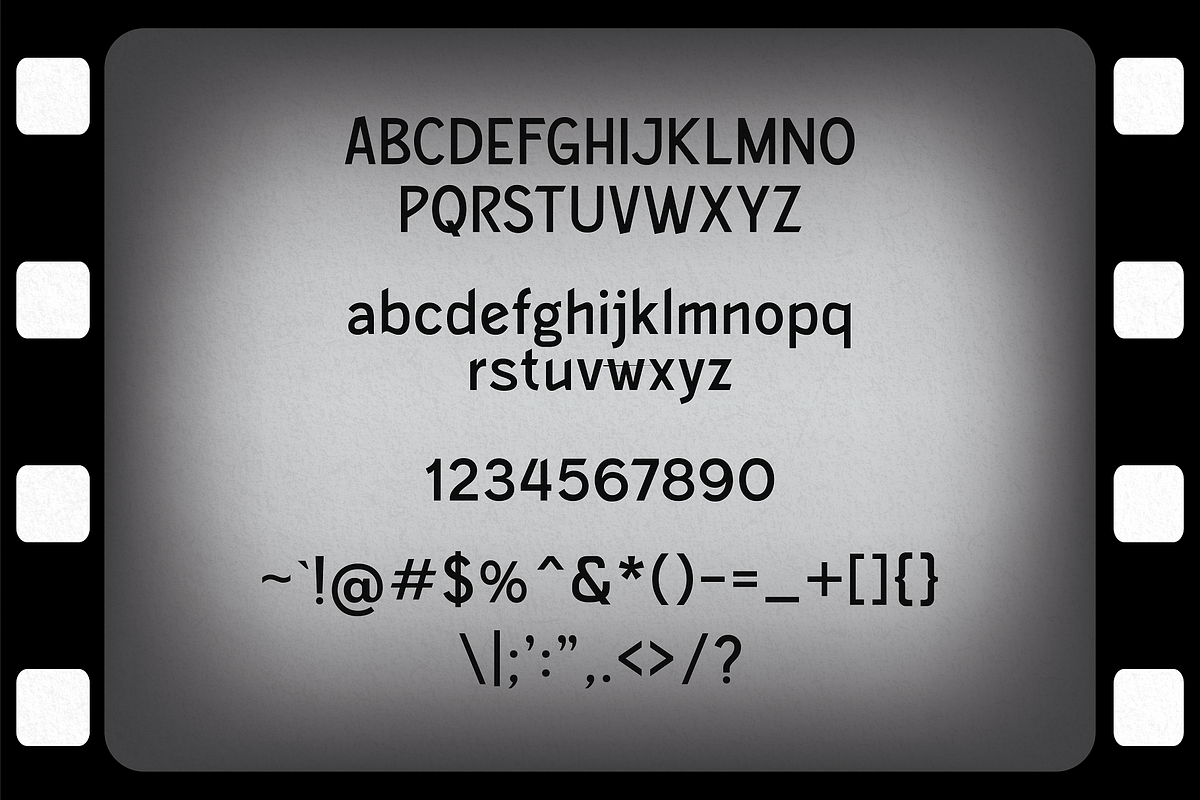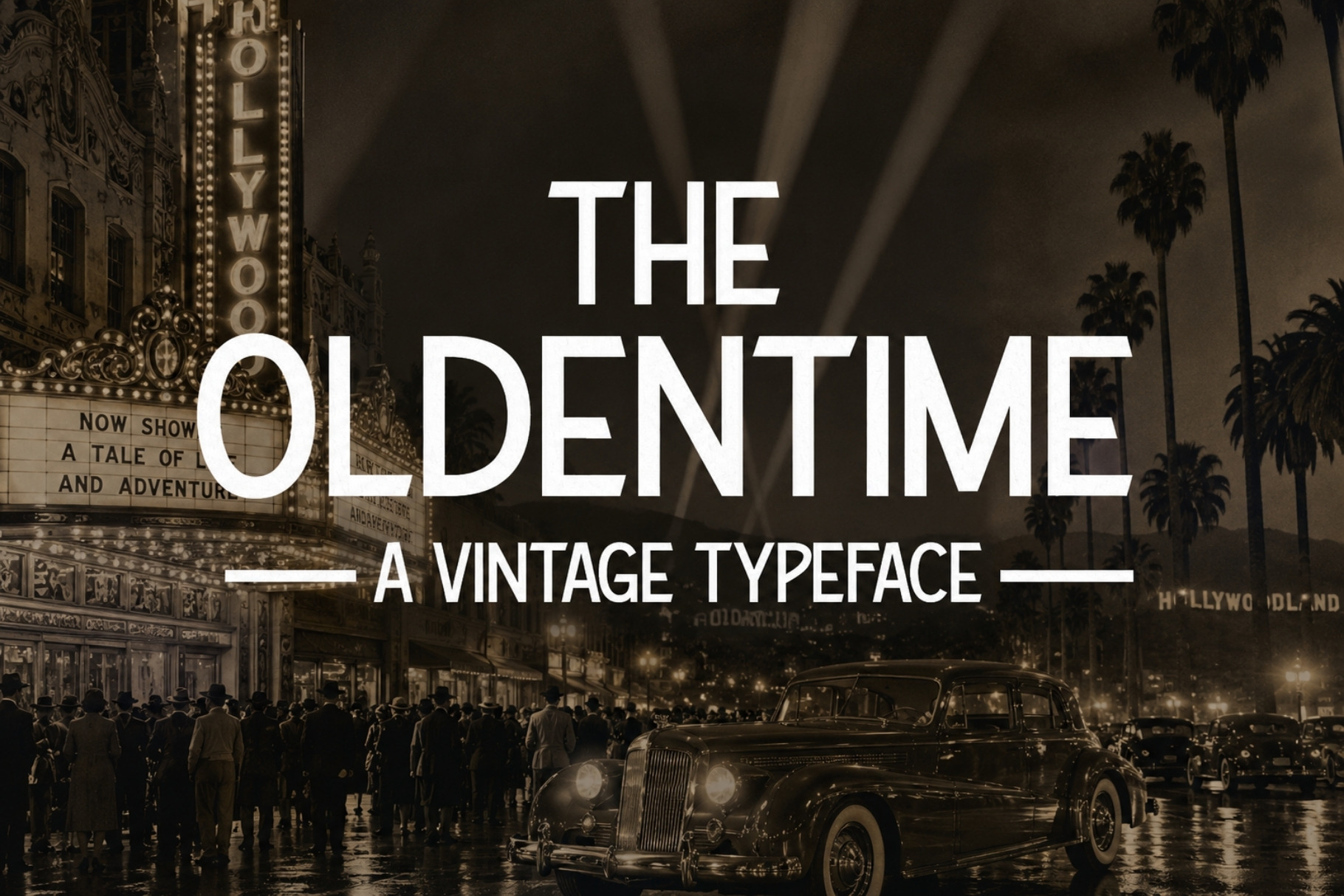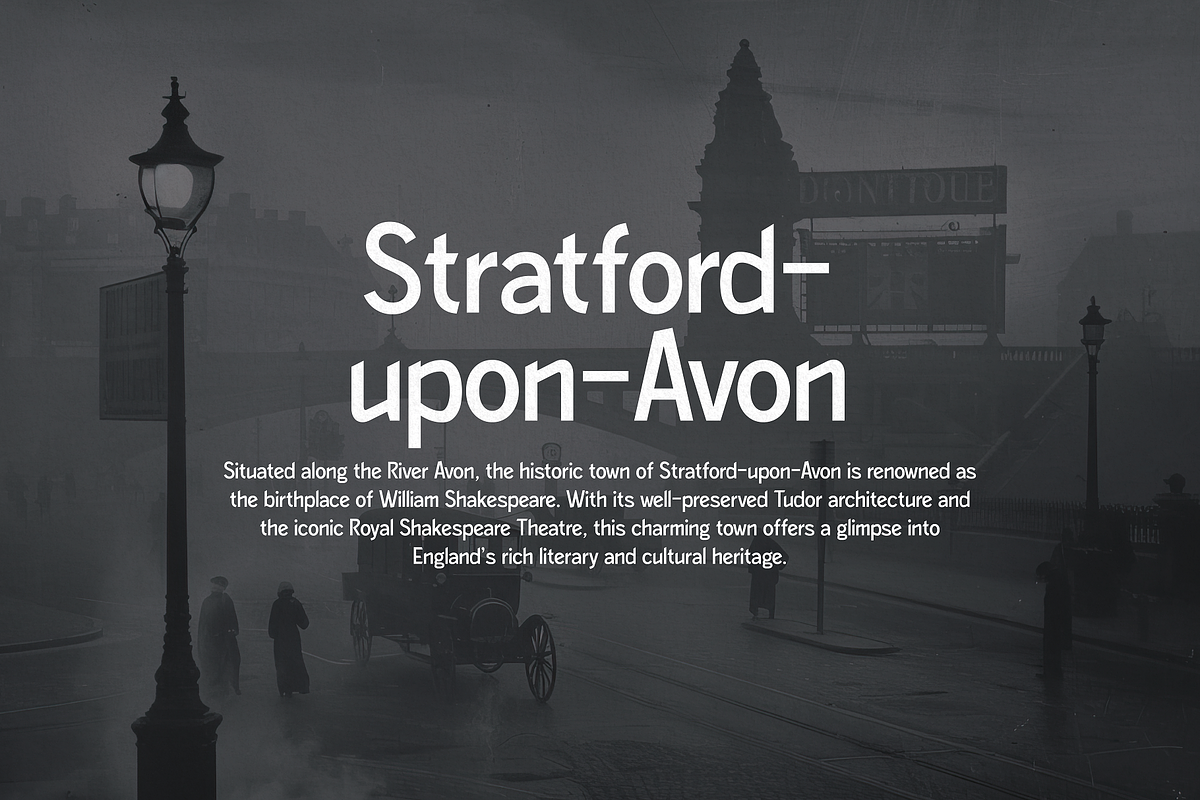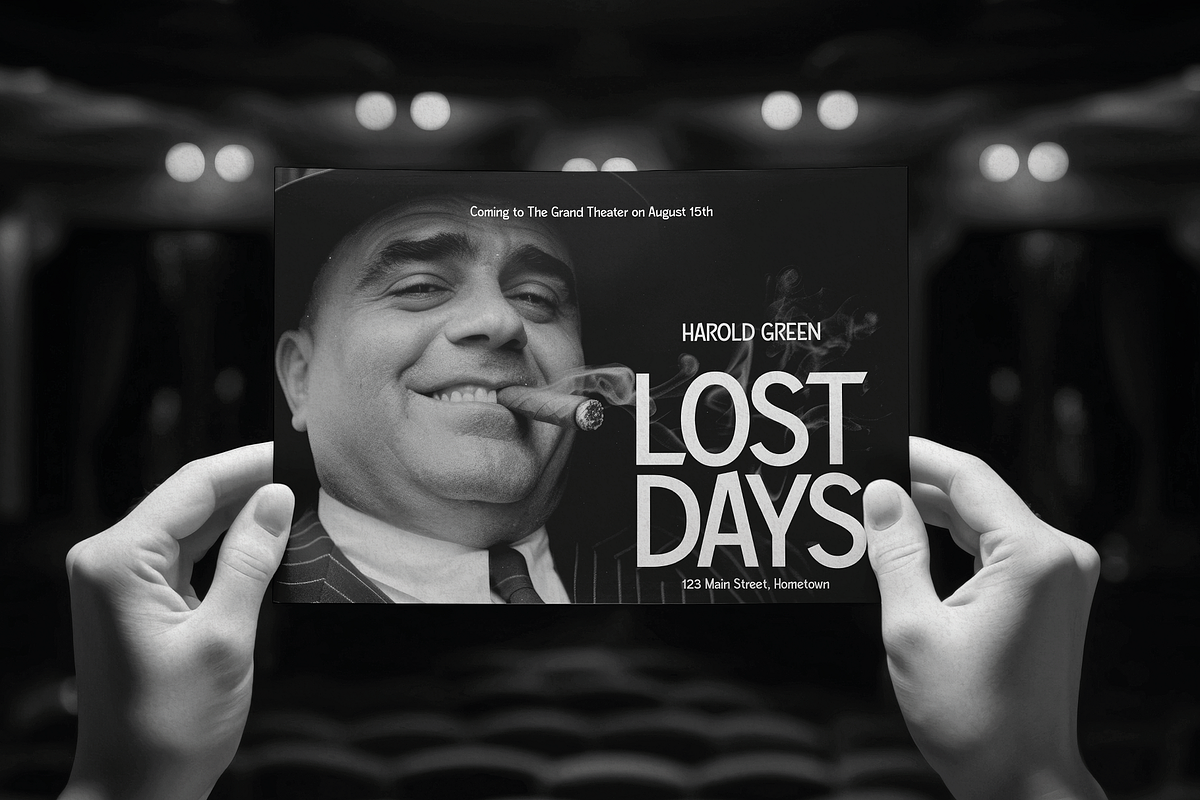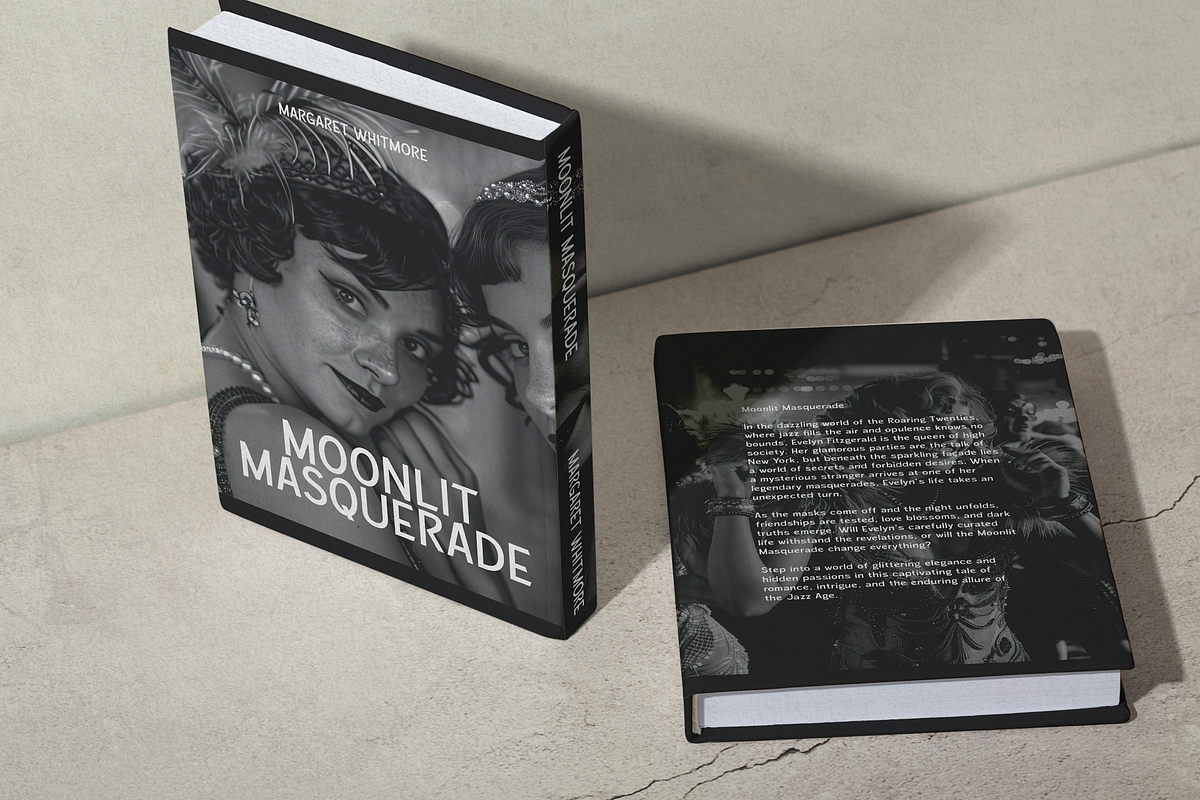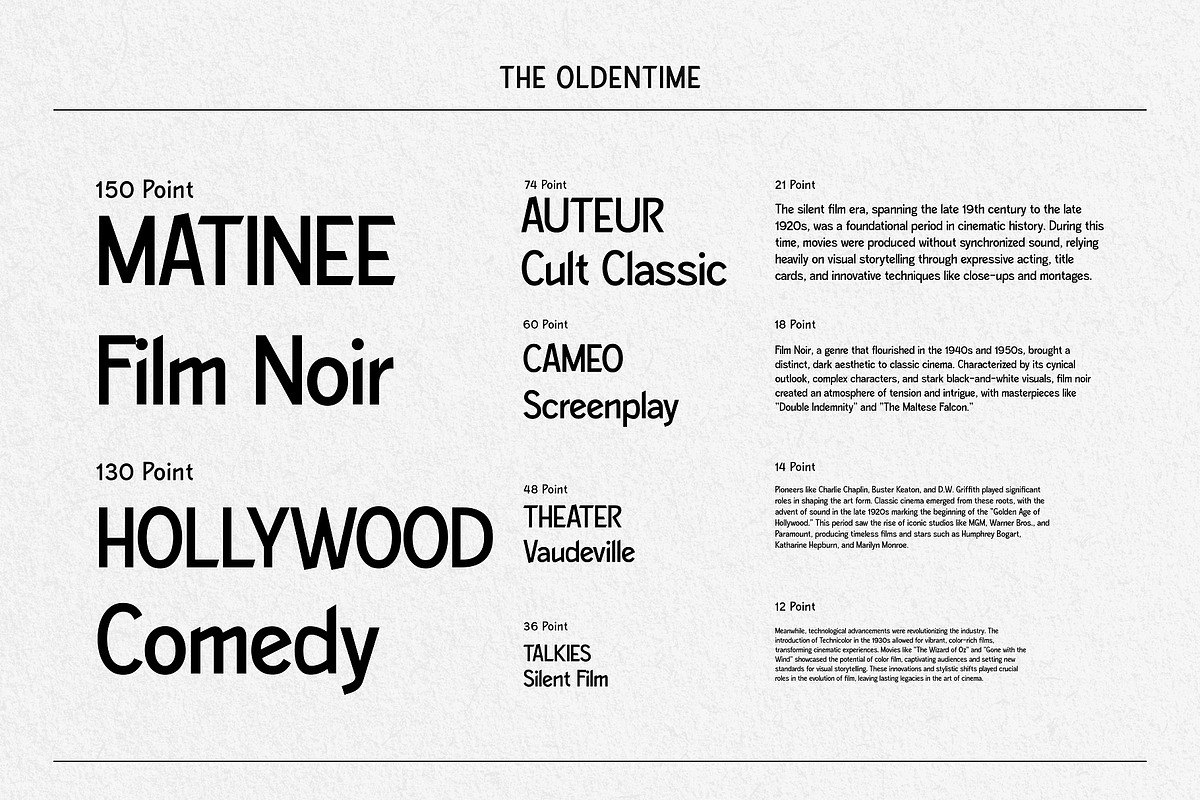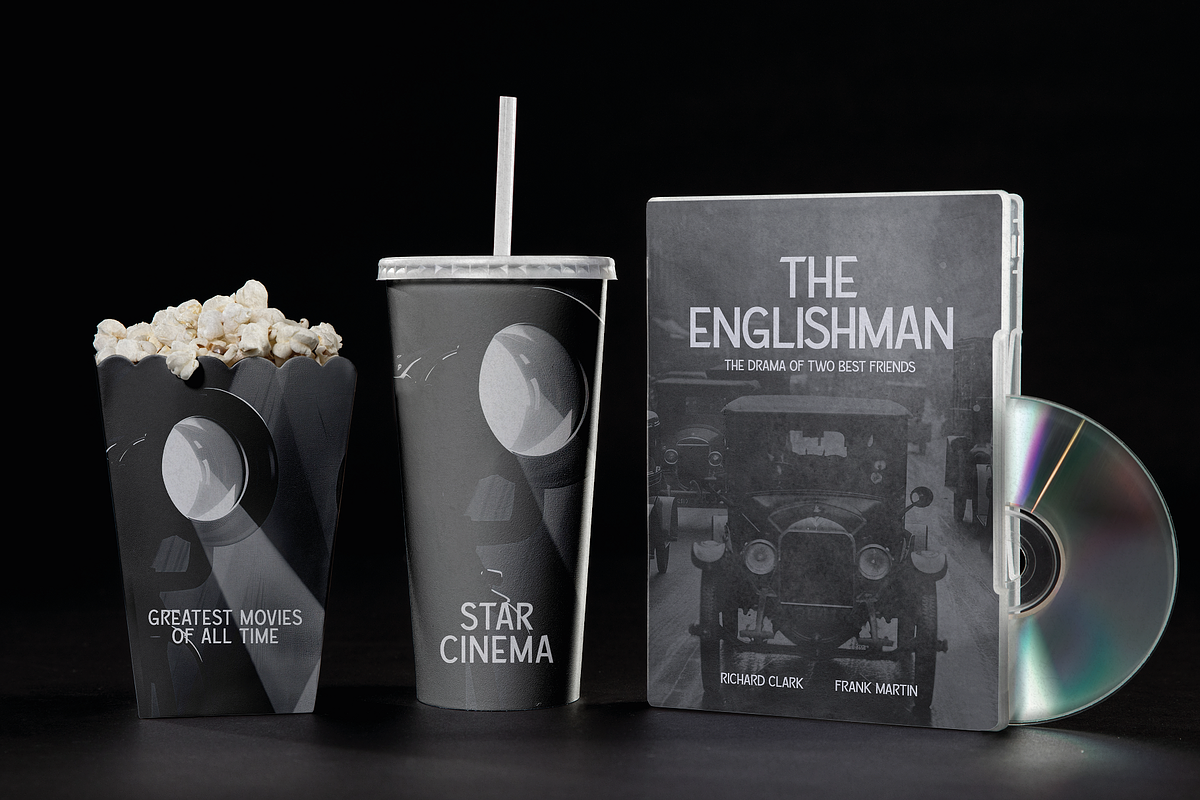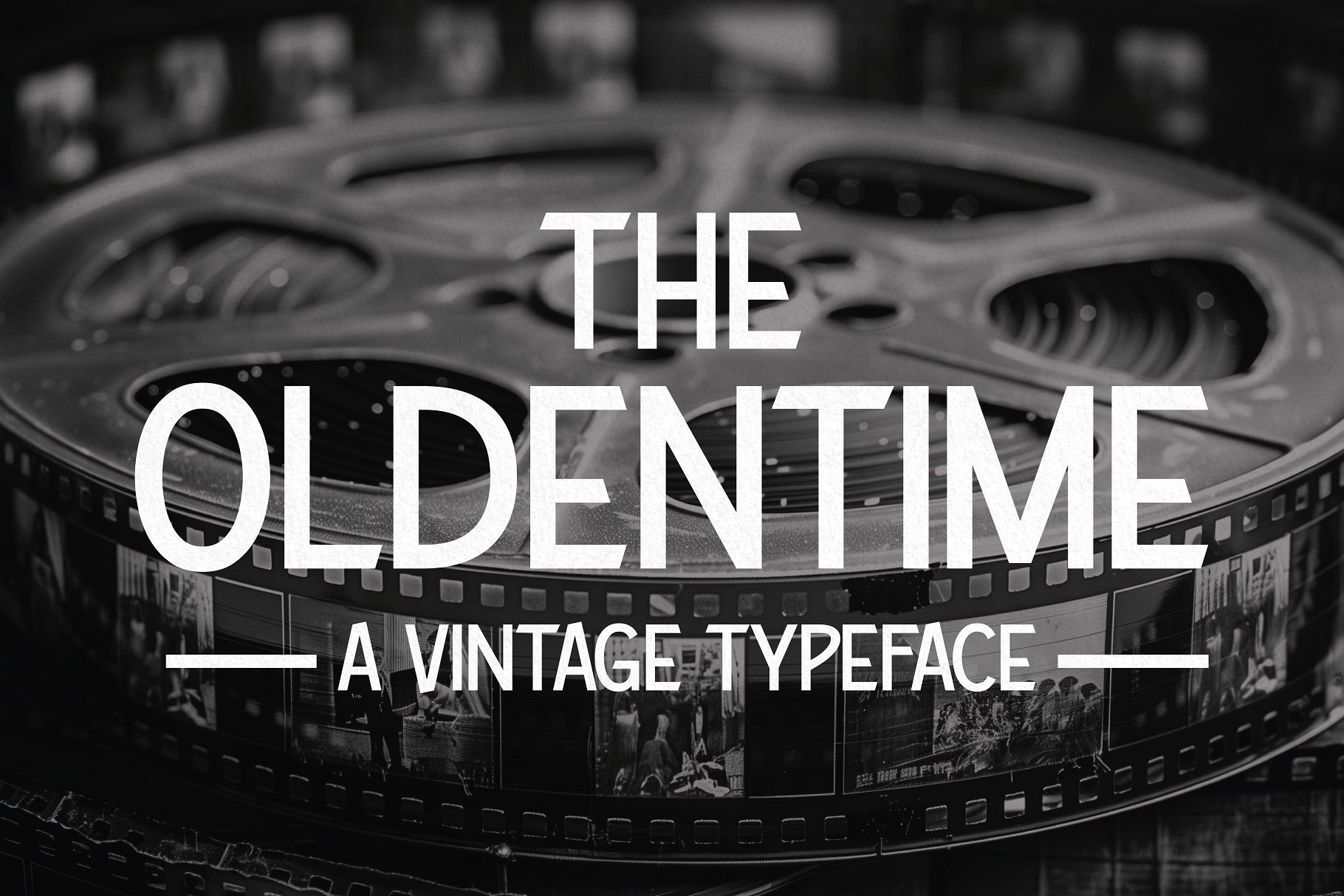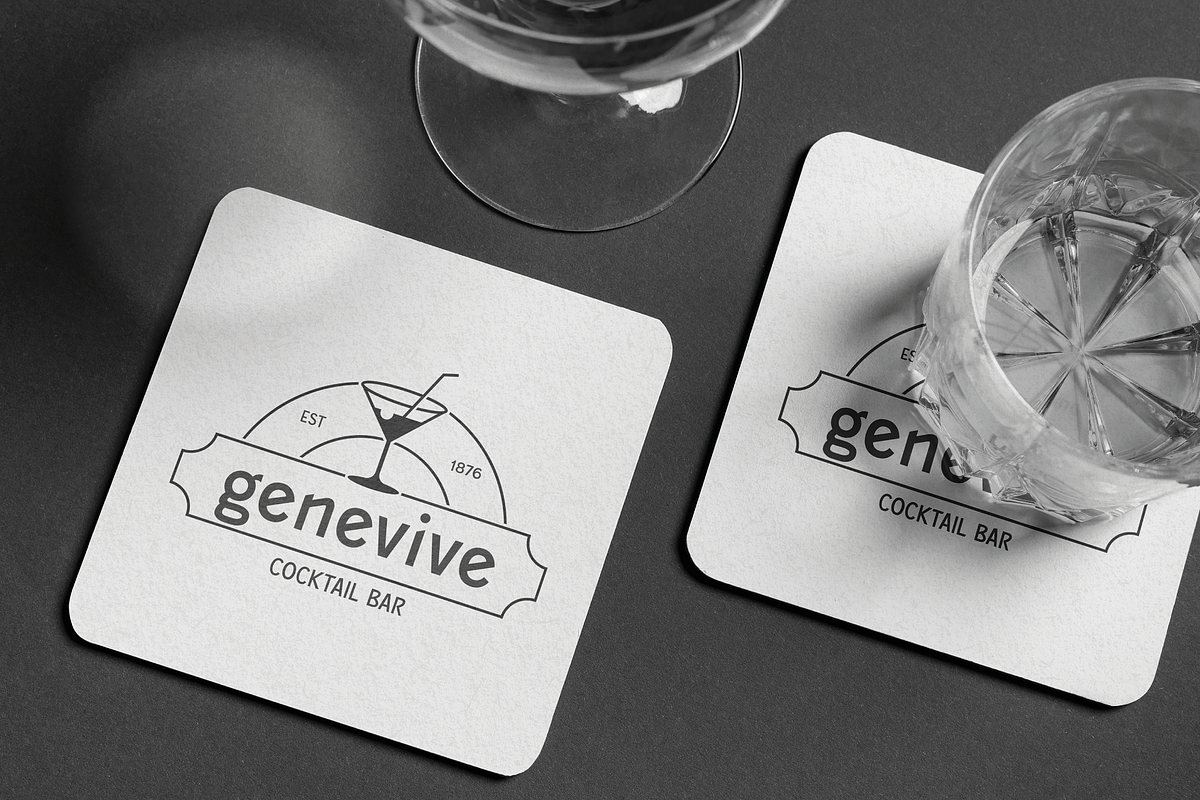
The Oldentime - Vintage 1920's Font
Step into the glitz and glamour of the roaring twenties with The Oldentime, a captivating vintage typeface inspired by the enchanting world of 1920s Hollywood cinema. Designed to evoke the essence of classic movie posters, silent film titles, and the iconic marquees that once lit up Tinseltown, The Oldentime is your ticket to a bygone era of elegance and sophistication.
Meticulously crafted to capture the intricate details and timeless beauty of 1920s typography, The Oldentime exudes a sense of nostalgia that will transport your audience back to the golden age of Hollywood. Perfect for movie posters, invitations, branding, and more, this typeface brings a touch of vintage allure to any project, making it an ideal choice for designers seeking to add a dash of classic elegance to their work.
Channel the spirit of silent films and vintage cinema with titles that stand out in true Hollywood style. Whether it’s a glamorous gala or a themed party, set the tone with invitations that exude vintage sophistication. Add a touch of timeless elegance to your brand identity with a typeface that speaks of heritage and class. Bring your magazines, books, and advertisements to life with a typeface that commands attention and evokes nostalgia.
With The Oldentime, every letter tells a story, and every word captures the magic of a bygone era. Step into the spotlight and let your designs shine with the unparalleled charm of 1920s Hollywood.